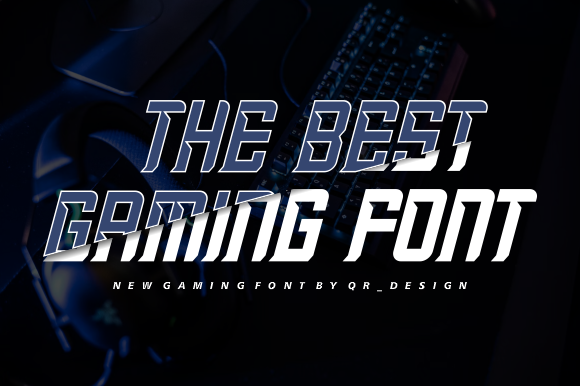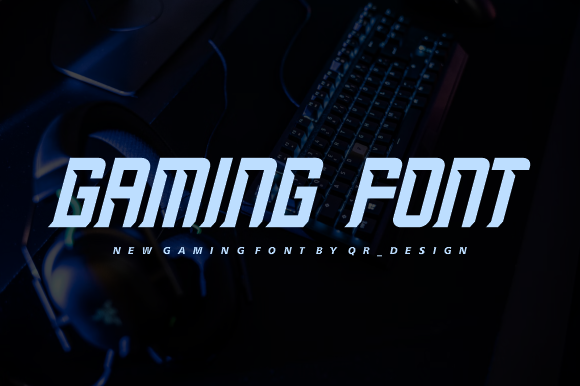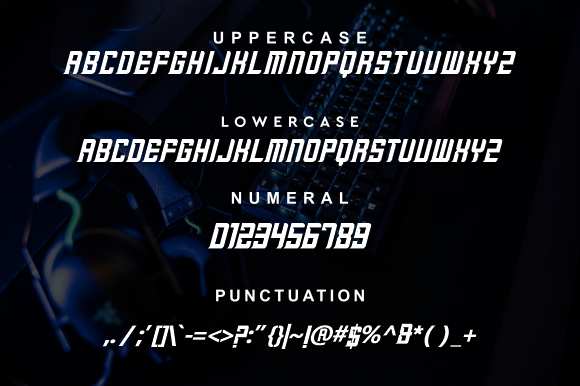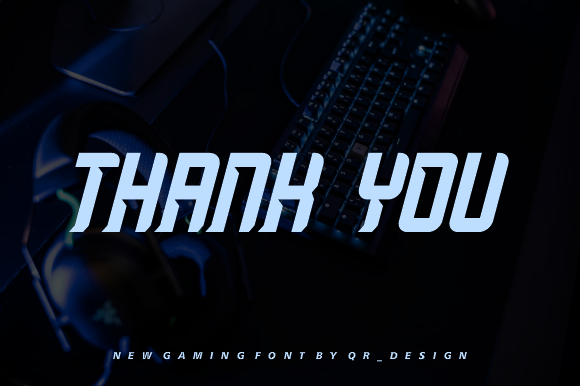
Unleash Your Creativity with Gamingog Font: The Ultimate Display Font for Gaming and Beyond
In the world of digital design, fonts play a crucial role in conveying the tone and personality of a brand or project. For gamers, designers, and crafters, finding the perfect font can be a daunting task. That’s where Gamingog Font comes in – a bold, authentic, and charming display font that’s perfect for a wide range of creative projects, from game branding to logos, posters, and more.
What is Gamingog Font?
Gamingog Font is a carefully crafted display font designed to make a statement. Its bold and authentic style is inspired by the world of gaming, making it an ideal choice for game developers, designers, and enthusiasts. With its unique charm and effectiveness, Gamingog Font is perfect for creating eye-catching titles, logos, and branding materials that demand attention.
Key Features of Gamingog Font
- Bold and Authentic Style: Gamingog Font boasts a bold and authentic style that’s perfect for making a statement.
- Versatility: This display font is suitable for a wide range of creative projects, from game branding to logos, posters, and more.
- Easy to Read: Despite its bold style, Gamingog Font is easy to read, making it perfect for titles, headings, and other display text.
- Unique Charm: Gamingog Font has a unique charm that sets it apart from other display fonts, making it perfect for designers and crafters looking for something new and exciting.
Use Cases for Gamingog Font
Gamingog Font is an incredibly versatile font that can be used in a variety of creative projects. Here are some use cases to get you started:
- Game Branding: Use Gamingog Font to create bold and eye-catching logos, titles, and branding materials for your game.
- Posters and Flyers: Create stunning posters and flyers with Gamingog Font, perfect for promoting events, products, or services.
- Logos and Icons: Use Gamingog Font to create unique and memorable logos and icons for your business or project.
- Social Media Graphics: Create engaging social media graphics with Gamingog Font, perfect for grabbing attention and driving engagement.
Why Choose Gamingog Font?
With so many display fonts available, why choose Gamingog Font? Here are just a few reasons why designers and crafters love Gamingog Font:
- High-Quality Design: Gamingog Font is designed with high-quality and attention to detail, ensuring that it looks great in any context.
- Unique Style: Gamingog Font has a unique style that sets it apart from other display fonts, making it perfect for designers and crafters looking for something new and exciting.